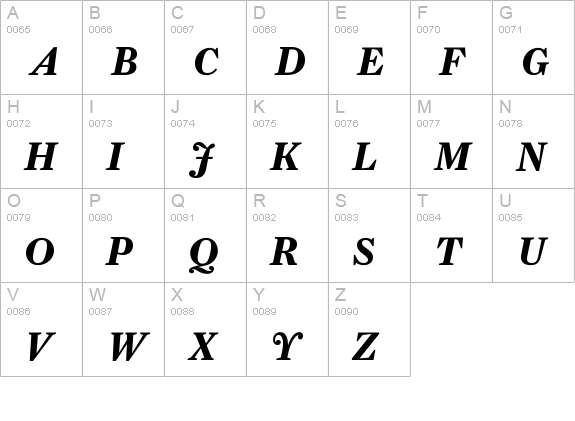
FarnhamDisplay-BoldItalOSF font is a striking and elegant typeface that exudes sophistication and style. Its bold and italic design adds a touch of flair to any project, making it perfect for headlines, titles, and other prominent text. The distinctive letterforms and intricate details of this font make it stand out from the crowd, while still maintaining a sense of professionalism. What makes FarnhamDisplay-BoldItalOSF font even more appealing is that it is available for free download at FontsMarket.com. This means you can easily access and use this beautiful font in your designs without any cost, making it a valuable addition to your typography collection. Whether you're working on a print project, digital design, or any other creative endeavor, FarnhamDisplay-BoldItalOSF font is sure to make a bold statement and leave a lasting impression.